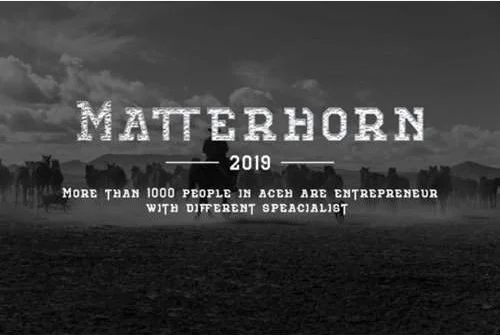
Matterhorn Font
Matterhorn Font is perfect for outdoor adventure branding, mountain resort logos, alpine tourism marketing, ski lodge signage, hiking equipment packaging, adventure sports campaigns, Swiss-inspired designs, mountaineering gear labels, wilderness expedition materials, and rugged outdoor lifestyle branding.
Matterhorn Font is exciting because it embodies the majestic power and timeless grandeur of mountain peaks through strong, elevated letterforms that evoke Alpine majesty and outdoor adventure spirit. This magnificently crafted typeface combines Swiss design precision with rugged outdoor aesthetics, making it perfect for brands that want to communicate strength, endurance, and connection to nature's most awe-inspiring landscapes.
The Matterhorn Font family includes multiple weights inspired by mountain architecture, featuring bold display versions and sturdy text weights with Alpine-influenced styling. The font showcases peak-inspired geometric elements, mountainous character details, and Swiss design principles that reflect the craftsmanship and reliability associated with Alpine traditions.
The Alpine sophistication of Matterhorn Font makes it an exceptional choice for outdoor gear companies, adventure tourism operators, and lifestyle brands that need typography capable of communicating mountain strength and Swiss reliability. The font's majestic character helps establish immediate associations with peak performance, endurance, and authentic outdoor experiences that appeal to adventure enthusiasts and nature lovers.
Ski resorts, outdoor equipment manufacturers, and adventure travel companies consistently choose Matterhorn Font for its ability to convey mountain majesty and Alpine sophistication through typography. The font excels in applications where establishing outdoor credibility and adventure authenticity are essential to brand positioning, making it particularly effective for sporting goods, tourism services, and outdoor lifestyle brands targeting active consumers.
This font's comprehensive character set includes mountain-inspired letterforms, peak-styled numerals, Alpine punctuation marks, and specialized outdoor symbols that support authentic mountain typography composition. The careful integration of Swiss design principles ensures genuine Alpine appearance while maintaining contemporary functionality for Matterhorn Font Free Download across all outdoor and adventure design applications.